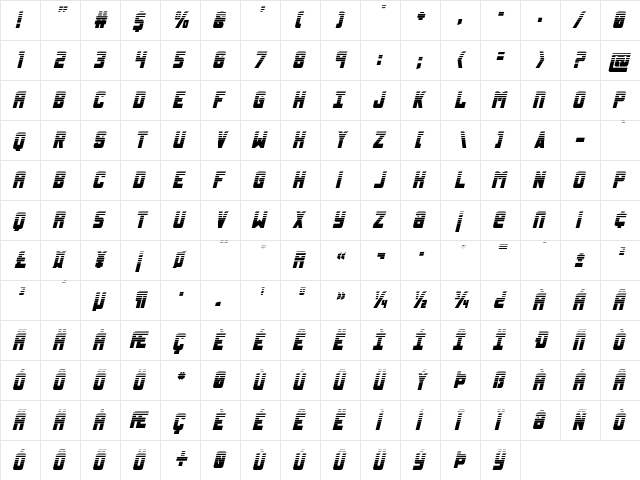
Urban Defender Halftone Italic Italic
Design Context for Urban Defender Halftone Italic Typeface
Urban Defender Halftone Italic is a composed and adaptable typeface that performs quietly and consistently across a wide range of design contexts. The dynamic lean of this cut emphasises speed and emphasis in any layout.
Pro Tip: Try Urban Defender Halftone Italic for annotation and caption copy alongside an upright companion — the contrast in angle creates a dynamic but ordered typographic system.